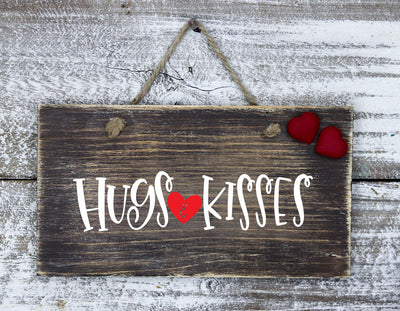
I need more hugs and kisses! This Valentines SVG file design would make an adorable t-shirt design for your little one. SVG files for tshirts and kids with hand lettering for Valentine's Day, what more could you ask for? Use this hand lettered design with your Silhouette Cameo or Cricut machine to craft super cute Valentines Day goodies.
You're receiving the phrase: Hugs & Kisses (this is not a font, this is hand lettering). I'm sharing previews as examples of how you can use this really adorable design over and over again for your home business or personal use. Thanks for your support! No physical product is given to you. You are downloading the digital files to create your own gifts or products using the design file.